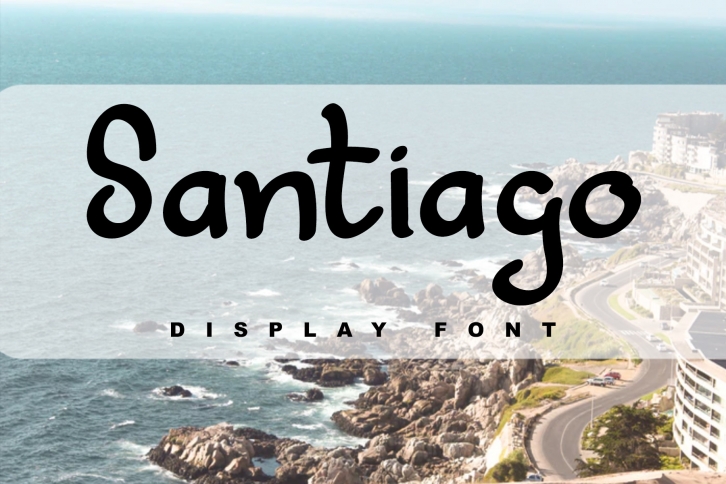
Santiago is a chic, refined script font that emanates sophistication and elegance. Its stylish alternates and ligatures make this font the perfect match for any project.